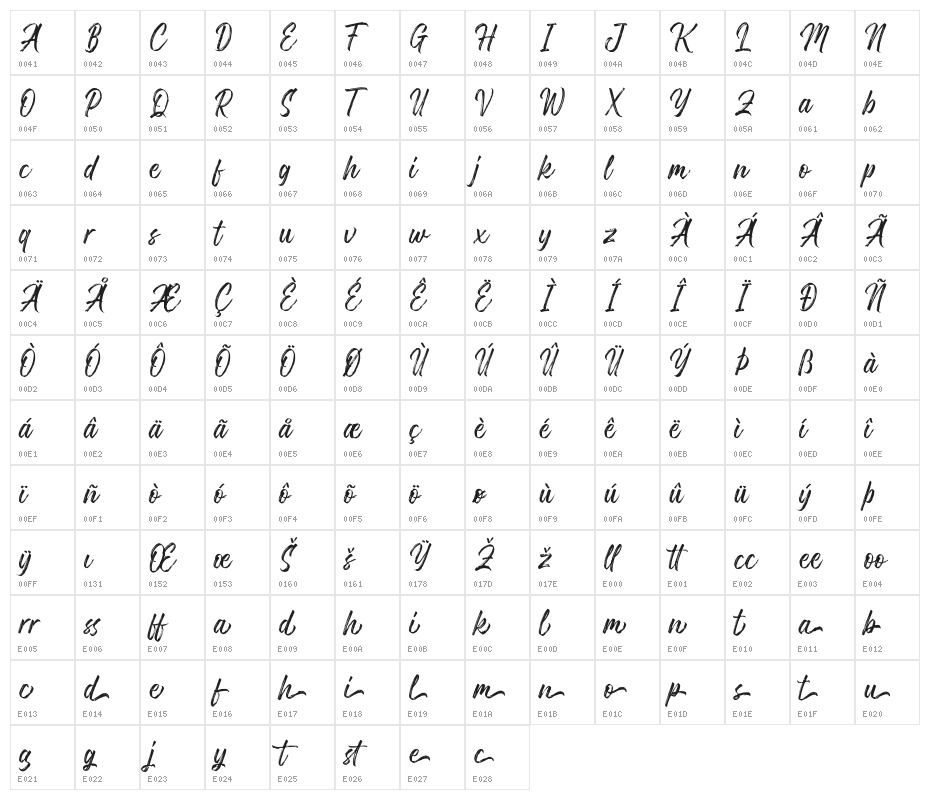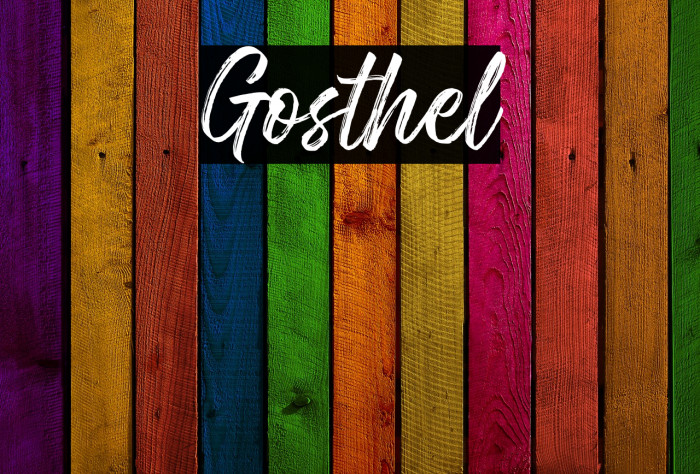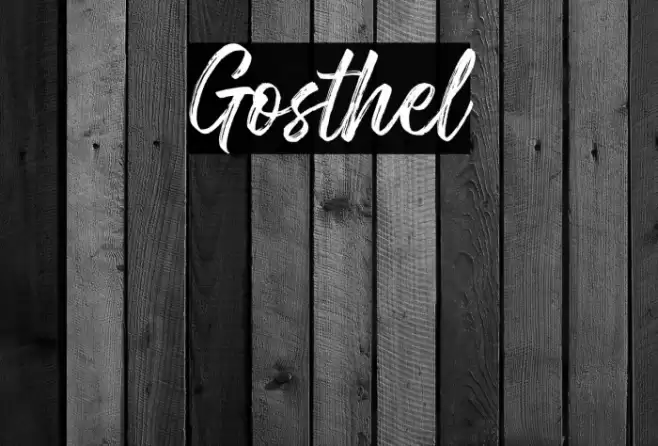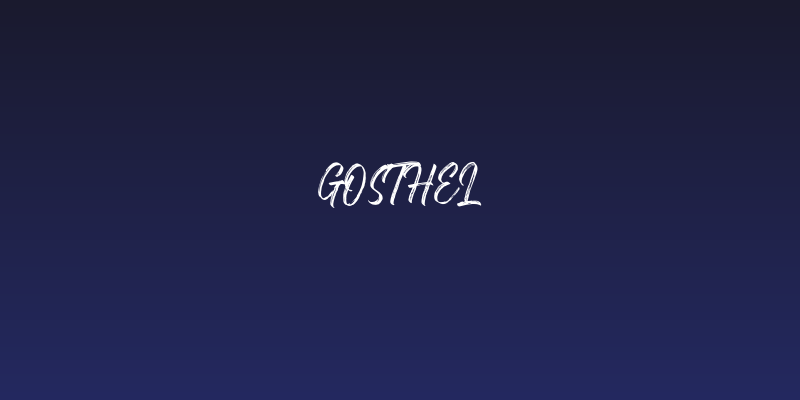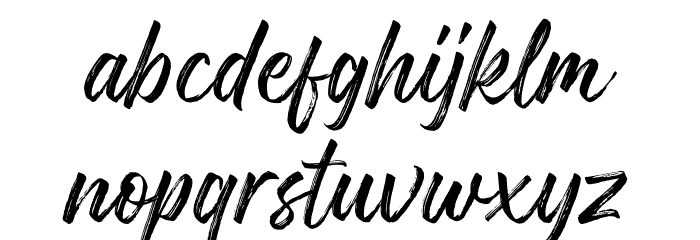
Gosthel Font
Gosthel Description
This font features a bold and expressive script style, characterized by its dynamic and flowing letterforms. The strokes are thick and textured, giving a hand-painted appearance that adds a sense of movement and energy. The uppercase letters are particularly striking, with dramatic flourishes and a slightly slanted orientation. The lowercase letters maintain a consistent style, complementing the uppercase with their own elegant curves. The overall design is both artistic and modern, making it suitable for creative and eye-catching designs.
| Proposed Projects | Ideal for branding, logo design, invitations, and artistic posters. |